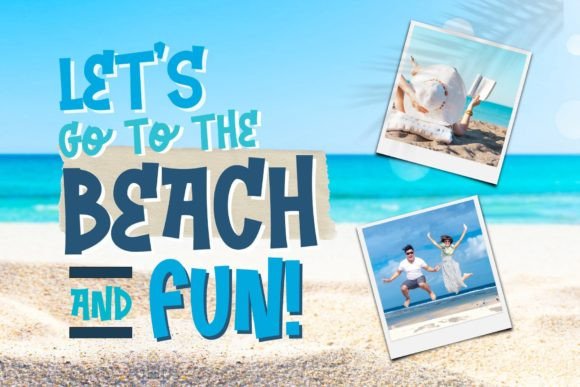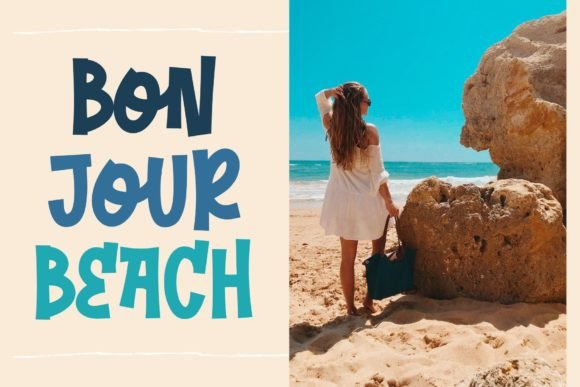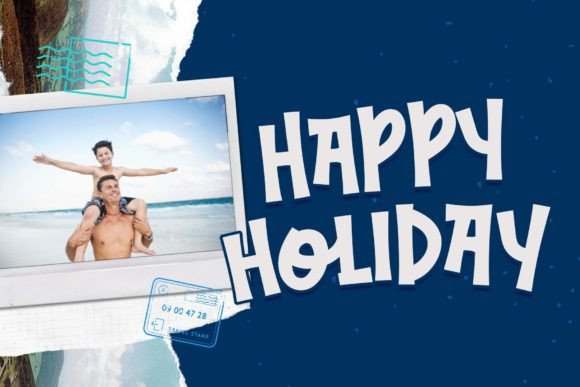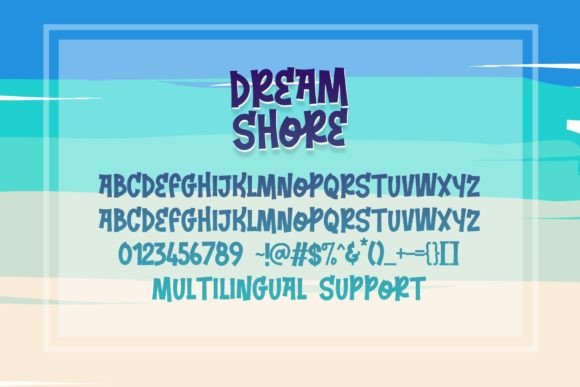
Dream Shore Font: A Fun and Friendly Display Font for Your Creative Projects
Are you looking for a font that can add a touch of joy and playfulness to your designs? Look no further than the Dream Shore font! This fun and friendly display font is perfect for a variety of creative projects, from cartoon-related designs to children’s games, quotes, titles, brand names, book covers, posters, and more.
What is Dream Shore Font?
Dream Shore is a display font that is designed to bring a sense of happiness and friendliness to your designs. Its unique and quirky style makes it perfect for projects that require a touch of whimsy and playfulness. The font is highly legible and can be used in a variety of contexts, from digital designs to print materials.
Key Features of Dream Shore Font
- Fun and Friendly Style: Dream Shore font has a unique and playful style that is sure to add a touch of joy to your designs.
- Highly Legible: The font is designed to be highly legible, making it perfect for use in a variety of contexts.
- Versatile: Dream Shore font can be used for a wide range of creative projects, from cartoon-related designs to children’s games, quotes, titles, brand names, book covers, posters, and more.
- Easily Customizable: The font can be easily customized to fit your specific design needs.
Uses of Dream Shore Font
Dream Shore font is a versatile font that can be used for a wide range of creative projects. Here are some ideas for using this font:
- Cartoon-Related Designs: Dream Shore font is perfect for cartoon-related designs, such as character designs, comics, and animated films.
- Children’s Games: The font’s playful style makes it perfect for use in children’s games, such as puzzle games, adventure games, and educational games.
- Quotes and Titles: Dream Shore font can be used to add a touch of personality to quotes and titles.
- Brand Names: The font can be used to create unique and memorable brand names.
- Book Covers: Dream Shore font can be used to create eye-catching book covers that will stand out on bookshelves.
- Posters: The font can be used to create fun and engaging posters for a variety of events and promotions.
Why Choose Dream Shore Font?
There are many reasons why you should choose Dream Shore font for your creative projects. Here are a few:
- Unique Style: Dream Shore font has a unique and playful style that will add a touch of personality to your designs.
- High Quality: The font is designed to be high-quality and highly legible.
- Versatile: Dream Shore font can be used for a wide range of creative projects.
Tips for Using Dream Shore Font
Here are a few tips for using Dream Shore font:
- Use it Sparingly: Dream Shore font is a display font, so it’s best to use it sparingly to add emphasis to specific parts of your design.
- Experiment with Colors: The font looks great in a variety of colors, so don’t be afraid to experiment and find the perfect color for your design.
- Pair it with Other Fonts: Dream Shore font can be paired with other fonts to create a unique and visually appealing design.
Dream Shore font is a fun and friendly display font that is perfect for a variety of creative projects. Its unique and quirky style makes it perfect for adding a touch of joy and playfulness to your designs. With its high legibility, versatility, and ease of use, Dream Shore font is a great choice for designers and crafters looking to add a touch of personality to their designs.